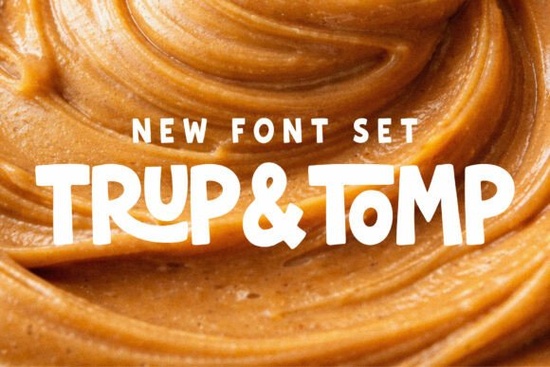
Finding the right typography can make or break a design project, especially when you need something that feels both fun and professional. The Trup & Tomp Font is a versatile duo designed to bring bold personality and warm character into your creative work. This pair combines a chunky, hand-drawn display sans with a smooth handwritten script, making it suitable for eye-catching headlines, branding, packaging, and social media graphics. Whether you are a print-on-demand seller, a small business owner, or a hobbyist crafter, having a reliable typeface pair saves time and ensures consistency across your visuals.
What Makes This Typeface Pair Unique?
This collection stands out because it offers two distinct styles in one package. The display sans is thick and sturdy, providing excellent readability for main titles. In contrast, the script font adds a human touch, perfect for subtitles or accent text. This dynamic contrast allows you to create hierarchy without needing to search for multiple downloads. When you use them together, the bold sans grounds the design while the script adds movement and energy. This balance is crucial for modern lifestyle visuals where clarity and personality must coexist. If you prefer something with more color variation for children's designs, you might explore brighter, colorful options that offer a similar playful vibe.
Both fonts are crafted to work well in digital and print environments. They include standard characters, numbers, and punctuation, ensuring you have everything needed for complete layouts. The hand-drawn quality means they avoid looking too mechanical, which helps brands feel more approachable. For creators focusing on positive messaging, pairing this duo with uplifting text styles can enhance the emotional impact of quotes or motivational posters.
Where Can You Use These Typefaces?
The versatility of this duo opens up many possibilities for commercial and personal projects. Print-on-demand sellers often need typography that reads well on t-shirts, mugs, and tote bags. The thick strokes of the sans-serif font remain visible even when printed on textured fabrics. For packaging design, the script element adds a premium feel to labels for homemade goods like jams, candles, or soaps. If you are working on nostalgic design elements, this font can be adjusted with textures to fit a vintage mood without losing legibility.
Small businesses can use these fonts for logos and social media banners. The distinct shapes help with brand recognition, making your posts stand out in a crowded feed. Wedding invitations, birthday cards, and nursery wall art also benefit from the warm character of the script. For projects requiring an older aesthetic theme, you can pair this with distressed backgrounds to create a timeless look. Additionally, the bold sans is strong enough for athletic or academic layouts, such as team shirts or event flyers, where clarity is key.
How Do You Pair Them Effectively?
To get the best results, focus on hierarchy. Use the chunky sans for the most important information, like the main headline or brand name. Reserve the handwritten script for secondary details, such as dates, taglines, or signatures. Avoid using the script for long paragraphs, as readability decreases with smaller sizes. Instead, keep body text in a simple, neutral font if needed. When layering these two, ensure there is enough contrast in size. The script should look deliberate, not cramped against the bold letters. Proper kerning and leading will help maintain a clean appearance across different platforms.
Color choice also plays a significant role. Since the fonts have strong personalities, they work well with solid backgrounds. Pastels complement the playful nature, while dark backgrounds make the chunky sans pop. Always test your design in grayscale first to ensure the weight distribution looks balanced. If the script feels too light compared to the sans, increase its size slightly until visual equilibrium is reached. This attention to detail ensures your final output looks professional regardless of the medium.
Quick Design Checklist
- Check Hierarchy: Ensure the sans-serif is larger than the script for clear reading.
- Test Readability: View your design at 100% zoom and on mobile devices.
- Contrast Colors: Use background colors that make the thick strokes stand out.
- Save Versions: Keep editable files and flattened versions for different uses.
By following these steps, you can maximize the potential of this typography pair in your next project. Whether you are branding a new shop or making gifts for friends, the right fonts simplify the process and improve the final result.